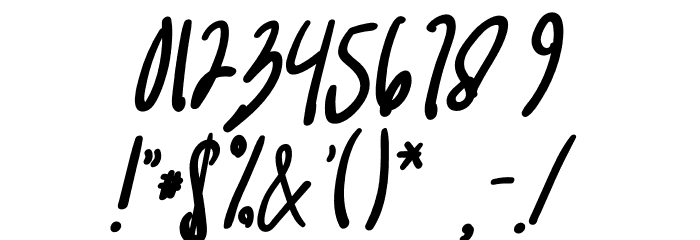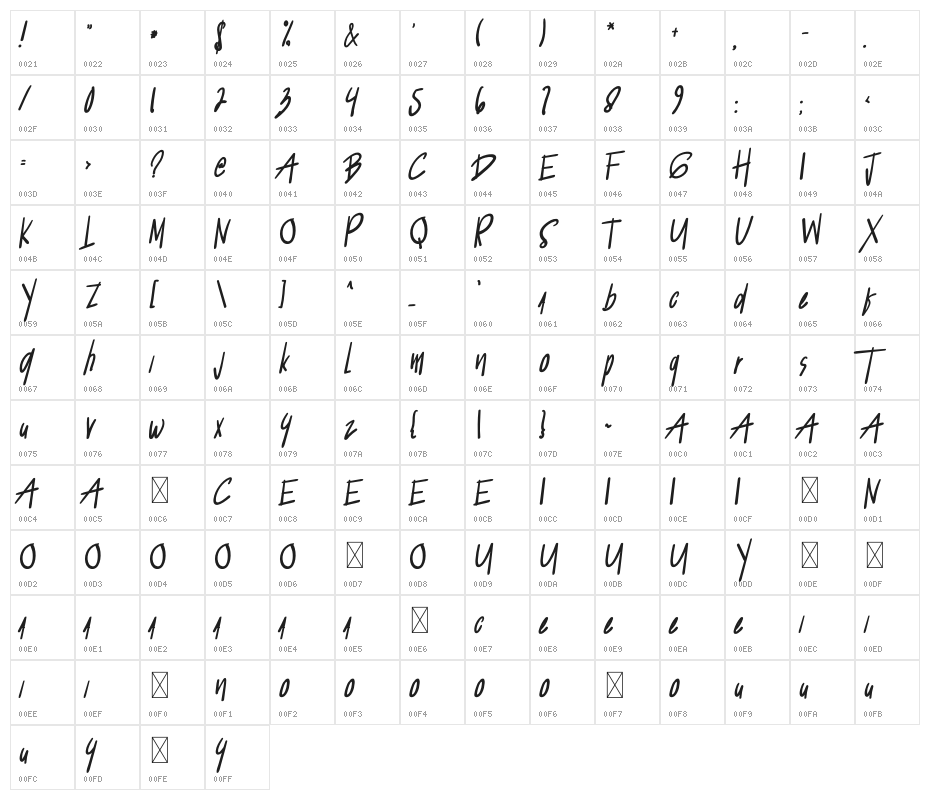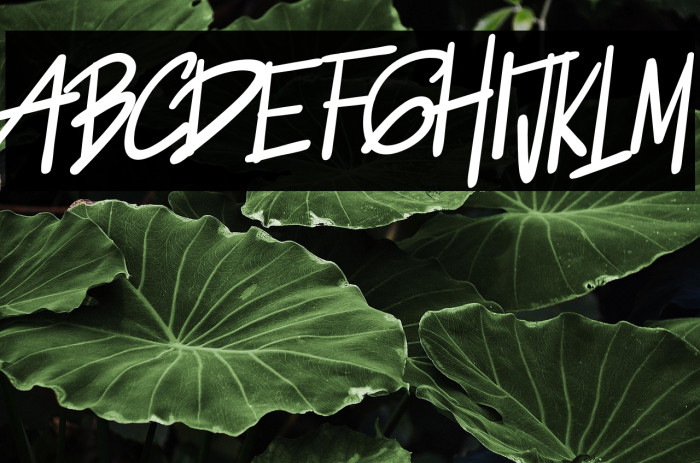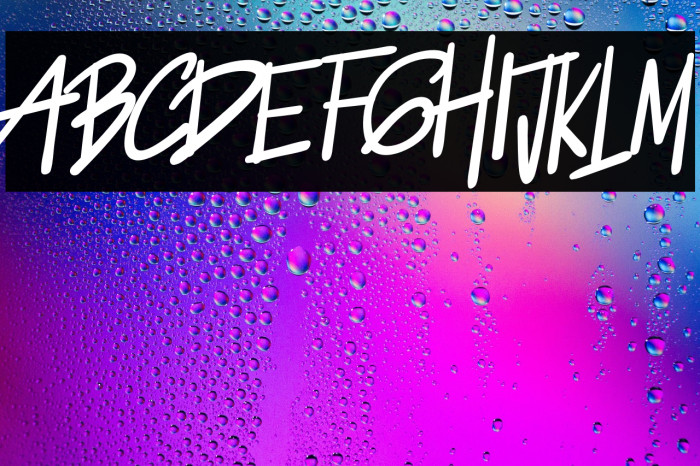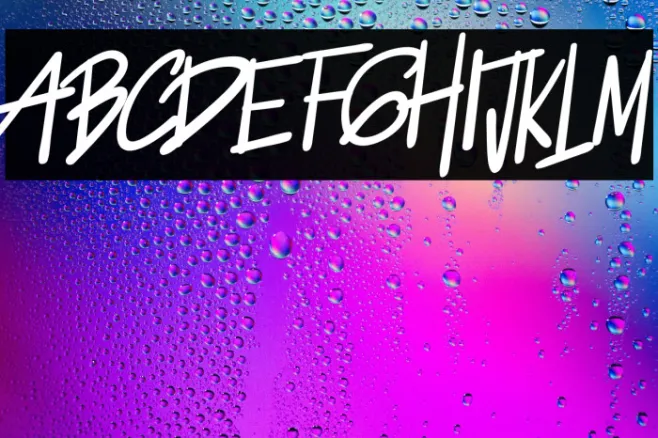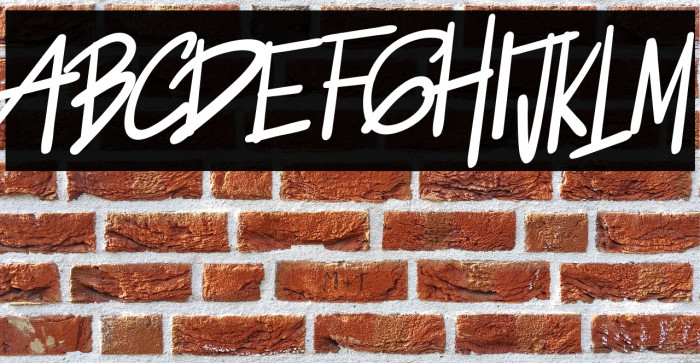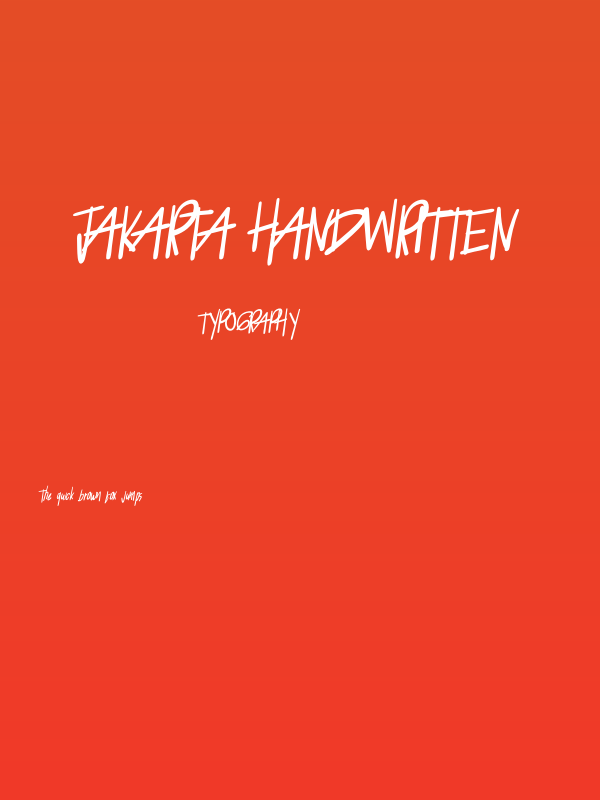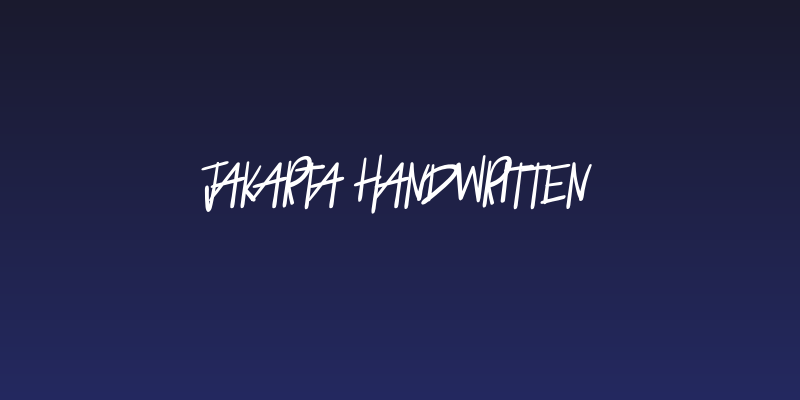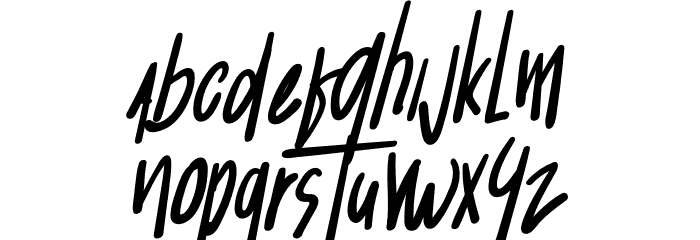
Jakarta Handwritten Font
Jakarta Handwritten Description
This font exudes a dynamic and energetic handwritten style, characterized by its fluid strokes and slightly irregular letterforms. The uppercase letters are bold and expressive, with a noticeable slant that adds a sense of movement and spontaneity. The lowercase letters maintain a consistent flow, complementing the uppercase with their casual and approachable appearance. Numbers and special characters are crafted with the same lively spirit, ensuring a cohesive look across all elements. The overall impression is one of creativity and personal touch, making it ideal for projects that require a humanistic and informal feel.